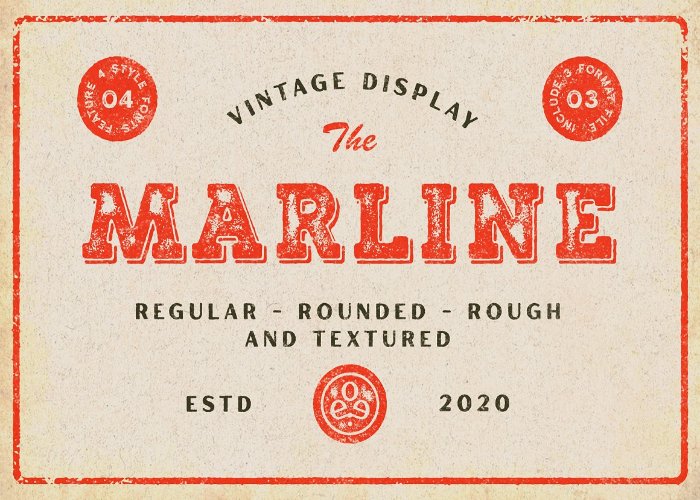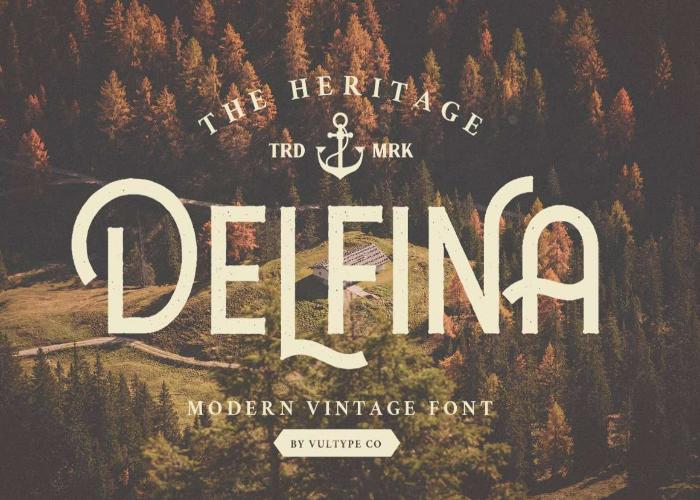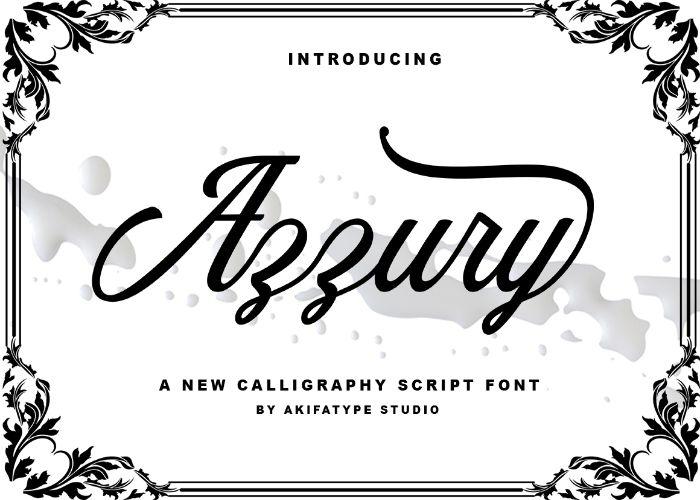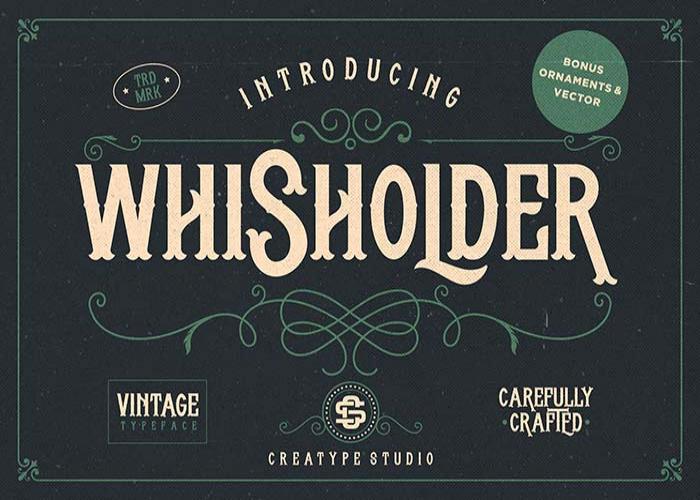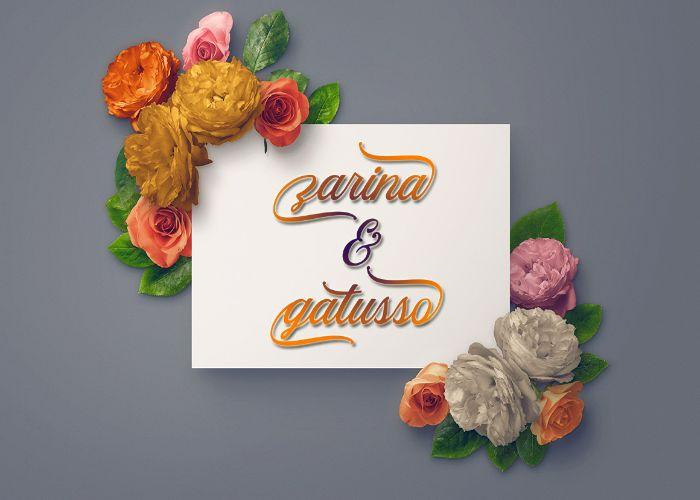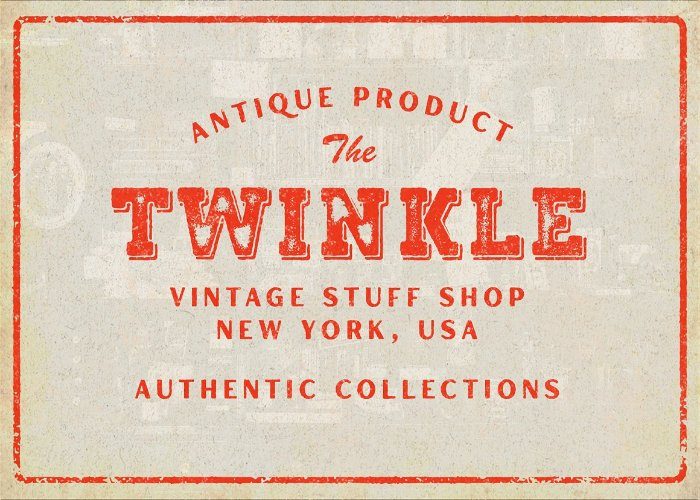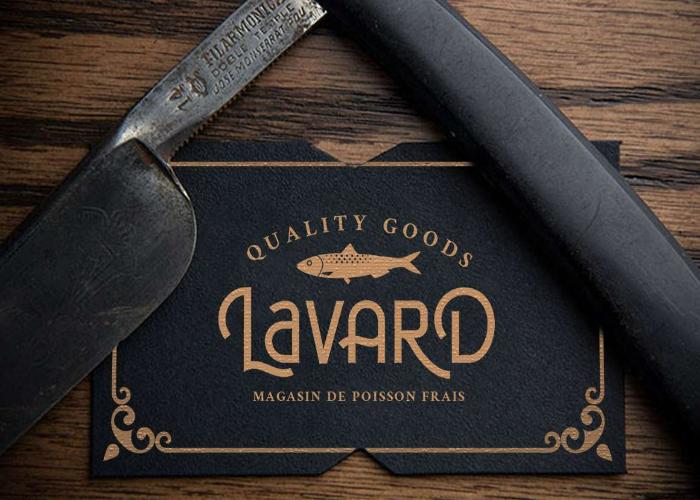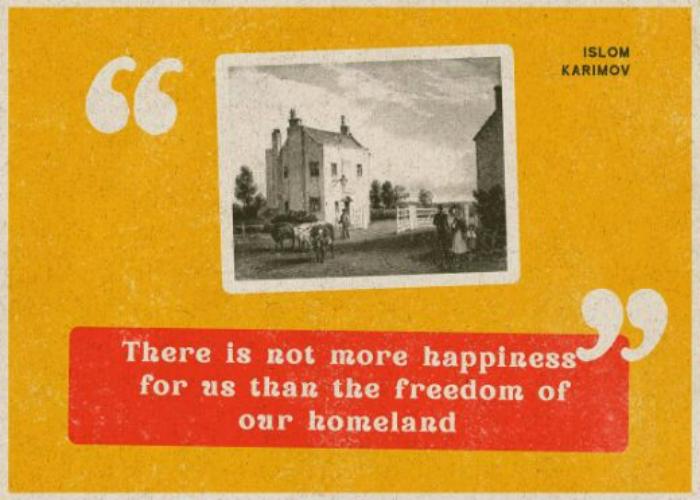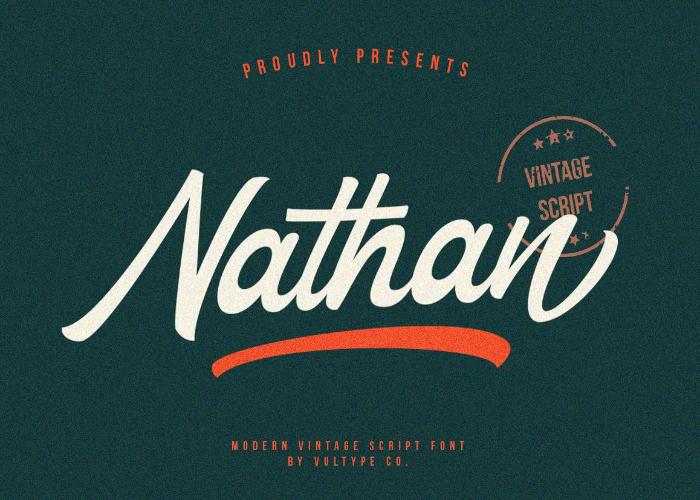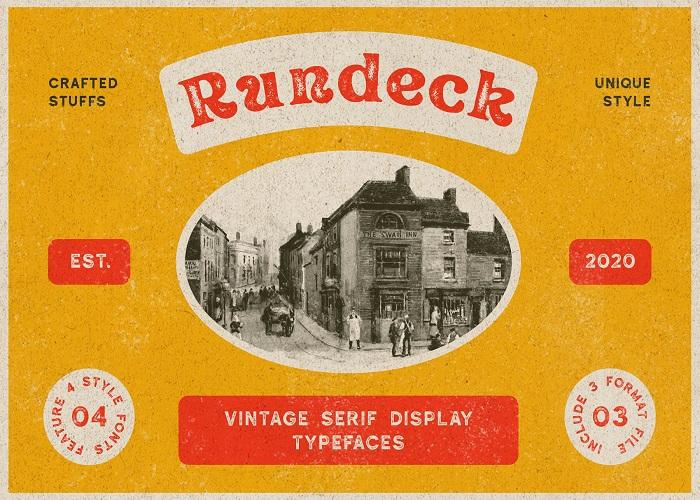
The Classic Vintage Fonts Freebie
Classic Vintage Fonts Freebie
Mind-blowing never seen before freebie!  An exclusive bundle of “8 Classic Vintage Fonts” curated by Pixelo for free.
This freebie includes 8 versatile vintage fonts which are inspired by retro American style. It combines two trends Modern Sans serif caps and Vintage Script.
These classic vintage fonts can be used for creating traditional style logos, labels, package designs, product packaging, product designs, label, photography, watermark, invitation, stationery, and any projects that need handwriting taste.
Free Harrlems Font
Harlem Classic Vintage Font Poster Preview
Harlem Font Preview Image
Marline - Vintage Font
Marline Vintage Classic Vintage Font Poster Preview
Marline Vintage Font Preview Image
Amaranthine Script
Amaranthine Script Classic Vintage Font Poster Preview
Amaranthine Script Font Preview Image
Rundeck - Vintage Font
Rundeck Classic Vintage Font Poster Preview
Rundeck Font Preview Image
DELFINA - Vintage Font
Delfina Classic Vintage Font Poster Preview
Delfina Font Preview Image
Nathan Vintage Script Font
Nathan Classic Vintage Font Poster Preview
Nathan Font Preview Image
Azzury Script Font
Azzury Classic Vintage Font Poster Preview
Azzury Font Preview Image
Whisholder Vintage Retro Typeface
Whisholder Classic Vintage Font Poster Preview
Whisholder Font Preview Image